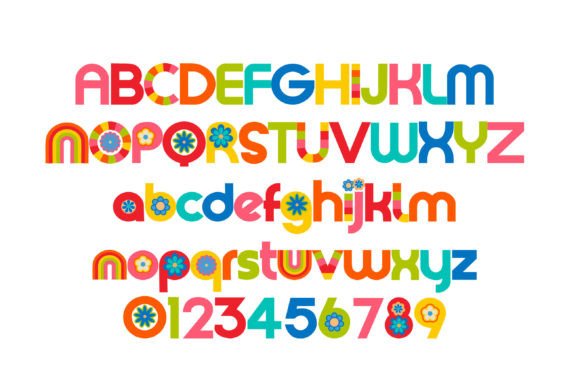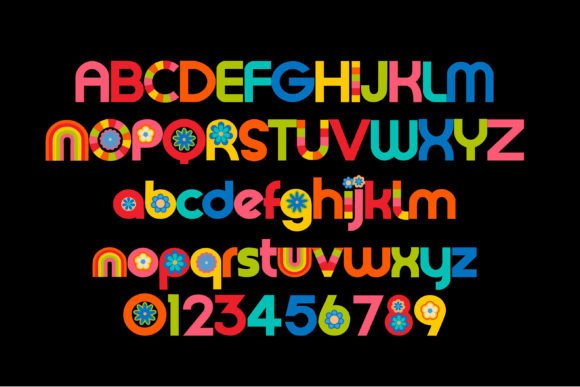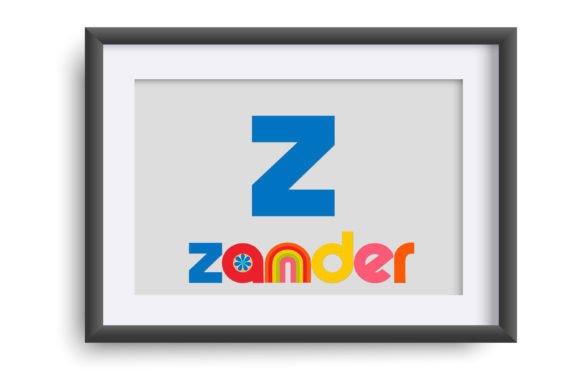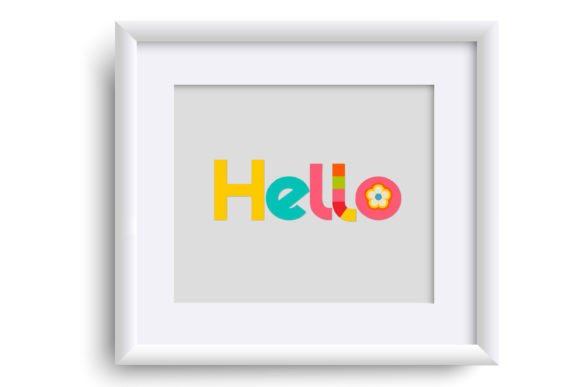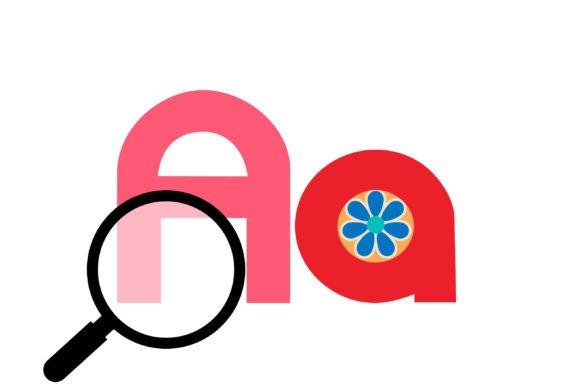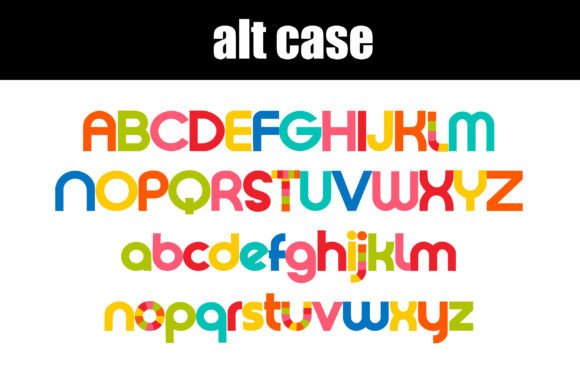
Get Ready to Groove: The Ultimate Font for Creative Expression
Have you ever stared at a blank page, wondering how to convey the perfect message to your audience? The blank page can be daunting, but what if you had a secret tool to break the silence and add a dash of personality to your designs? That’s where the Bold Groove Font comes in – a vibrant and playful font that will breathe life into your words.
This charming font is designed to add a splash of cheer and charm to your designs, from invitations and social media posts to marketing materials. With its unique style and hue for each letter, Bold Groove Font is the perfect way to infuse your words with playful and whimsical energy. Whether you’re a seasoned designer or a creative newbie, this font is sure to become your new best friend.
Bold Groove Font Key Features
- Font Family: Bold Groove
- Character Count: 250+ glyphs, including Latin, Cyrillic, and Greek alphabets
- Unique Characteristics: The Bold Groove font features a unique blend of modern and vintage elements, with bold lines, geometric shapes, and a touch of elegance, making it ideal for use in advertising, magazines, and other high-end publications
Bold Groove Font Review
Overall, I think Bold Groove Font is a solid addition to any design project. ✨ Its modern and sleek aesthetic makes it perfect for headlines and titles. The font’s bold weight gives it a lot of visual impact, which is great for grabbing attention. I’ve used it in a few designs, and it always seems to elevate the overall look.
- ✨ Versatile: Bold Groove Font is suitable for a wide range of designs, from modern websites to print materials.
- ✨ Easy to read: The font’s clear and legible design makes it perfect for body text as well.
- ✨ Great for headings: As mentioned earlier, the font’s bold weight makes it perfect for headlines and titles.
That being said, there are a few limitations to consider: ⚠️ The font can be a bit too bold at times, which can make it difficult to read in certain contexts. Additionally, some of the characters may not be as refined as others, which can be a bit distracting. However, these are minor complaints, and for the most part, I’m happy with the font.
Overall, I would give Bold Groove Font 4 out of 5 stars. It’s a solid choice for designers looking for a modern and eye-catching font, but it may not be the best option for every project.
Tip: Use the Bold Groove Font for headings and titles to add a touch of sophistication to your designs.
Tip: Use the Bold Groove Font for text overlays or titles to add a touch of elegance to your designs.
Tip: Use the Bold Groove Font for headings and titles to add a touch of professionalism to your presentations and documents.
The Bold Groove Font is ideal for:
- Music and arts-related designs
- Event invitations and promotions
Remember to use the Bold Groove Font in conjunction with other design elements to create a cohesive and visually appealing design.